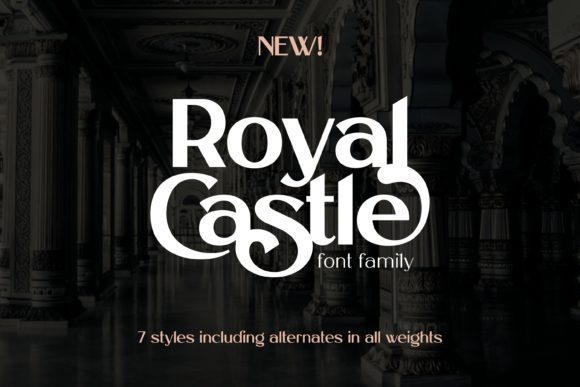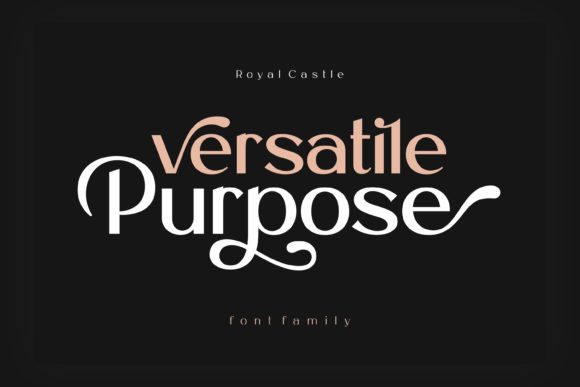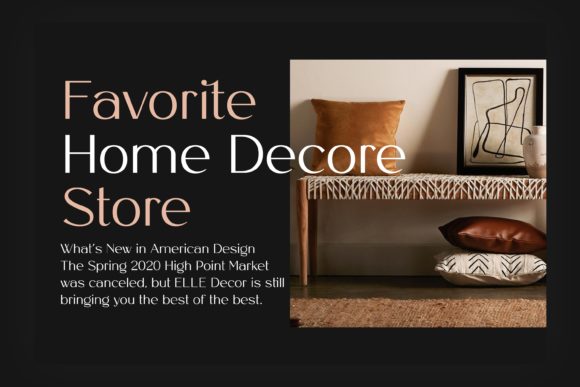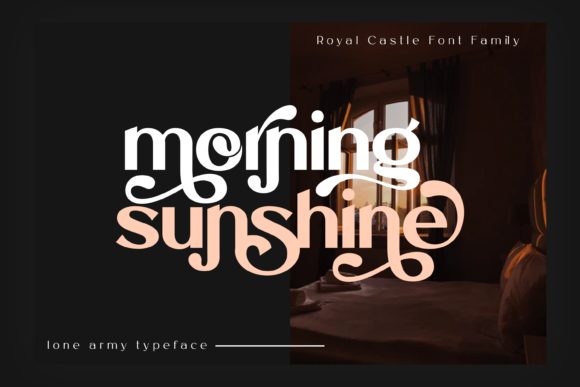
Royal Castle Font: A Luxurious Vintage Sans Serif for Logo Design
About the Royal Castle Font
Let us introduce you to Royal Castle Font, where timeless design meets modern craftsmanship. Royal Castle is a unique sans serif font family. It features a luxurious style and amazing swashes. It comes packed in 7 styles. Royal Castle feels playfully nostalgic and delivers an incredible vintage aesthetic. Use it to add that special retro touch to any design idea you can think of!
Royal Castle excels in headline treatments, logos, and short-form text within branding materials and packaging design. Its playful vintage aesthetic works well for projects with a retro or nostalgic feel, adding a touch of elegance without being overly serious. However, its swashes and decorative elements make it less suitable for body copy or UI elements requiring high readability.
The font’s inherent boldness pairs well with clean, geometric sans-serifs for a balanced contrast. Consider pairing it with a neutral serif like Garamond for a sophisticated look, or a playful script font like Allura to enhance its vintage charm. Avoid pairing it with other heavily ornamented fonts, as this might create visual clutter.
Royal Castle’s personality is best described as playful yet sophisticated. Its vintage charm and luxurious feel make it ideal for brands aiming for a retro-chic or vintage-inspired aesthetic.
Royal Castle Font Usage Examples
Royal Castle Font Example